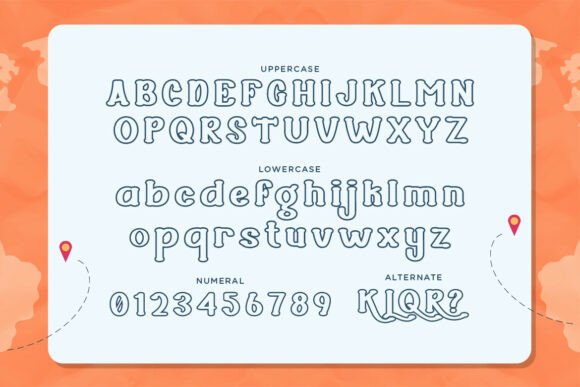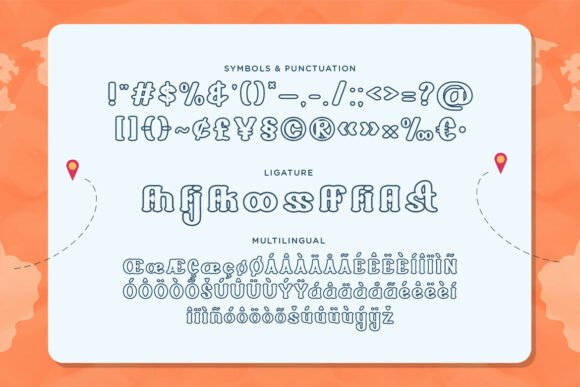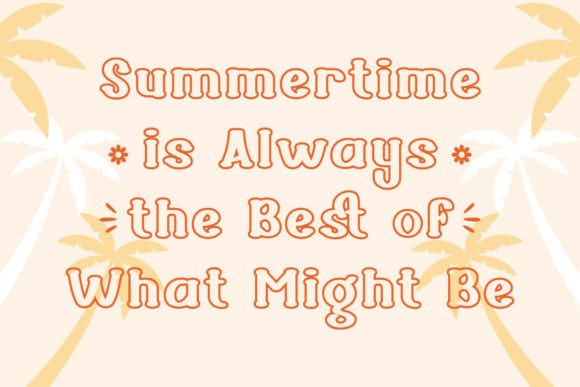
Introduction to Rega Font
As a designer, there’s nothing quite like the thrill of a new creative project. The blank slate, the endless possibilities, and the chance to bring your vision to life. But sometimes, it’s the smallest details that can make all the difference. For me, that detail is the perfect font. And that’s where Rega Font comes in – a playful serif display typeface that’s sure to add a touch of magic to your next design.
With its rounded contours and clean double-line outline structure, Rega Font is the perfect choice for designers looking to create a cheerful and relaxed atmosphere in their work. Whether you’re working on a travel poster, summer campaign, or seasonal promotional material, Rega Font is the perfect design resource to elevate your project and make it stand out from the crowd.
Key Features of Rega Font
- High-quality font suitable for various creative projects, including graphic design, digital art, and publishing.
- Includes a comprehensive character set, supporting a vast array of languages and characters.
- Designed with a modern and sleek aesthetic, making it an ideal choice for contemporary design projects.
Honest Review: Rega Font
- Rega Font has a clean and modern design that makes it perfect for corporate and business projects. ✨
- The font family is quite limited, with only a few weights and styles available. ⚠️
- The Rega Font doesn’t support a wide range of languages, which can be a problem for international design projects. ⚠️
Overall, I’m impressed with the Rega Font, but I do wish it had a more extensive font family and language support. If you’re looking for a high-quality font for a creative project, I’d definitely recommend giving it a try. Just be aware of its limitations, and you’ll be all set for a great design experience.
Tips for Getting the Most Out of Rega Font